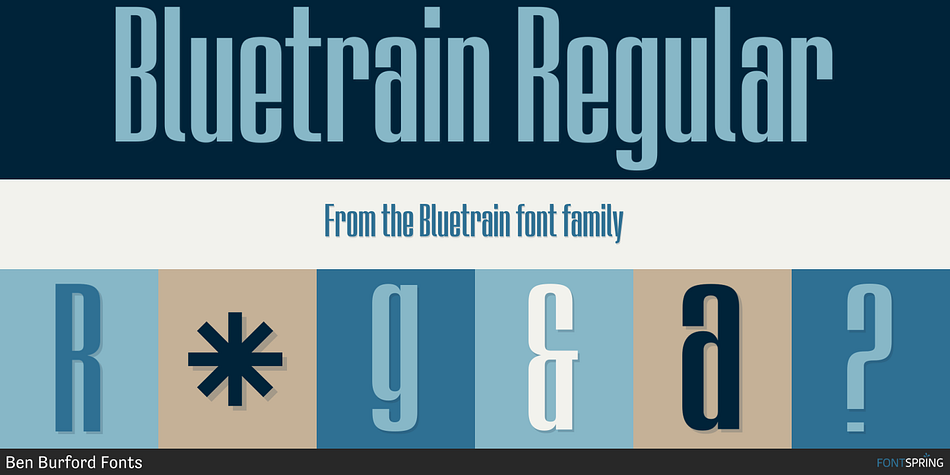
Bluetrain Regular
Designed by Ben Burford, Bluetrain is a sans serif font family. This typeface has two styles and was published by Ben Burford Fonts.
Taking its name from John Coltrane’s seminal record , Bluetrain is a homage to some of the classic album covers from Blue Note Records; and the timeless style of the condensed Swiss grotesque/Compacta faces. with its slightly exaggerated contrast and some quirks in the design, Bluetrain brings a playful touch. With Opentype features, Alternate Characters, Small Caps and more, Bluetrain can work in a variety of applications.